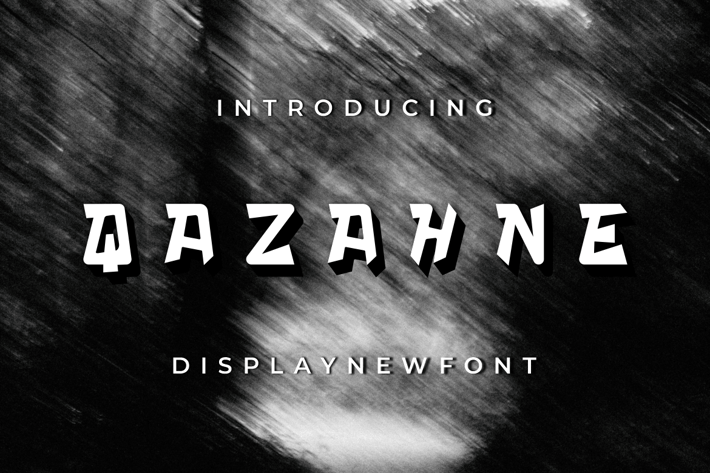
QAZAHNE Font
Introducing our new product QAZAHNE Font - Modern Font
QAZAHNE Font - Modern Font is a bold and authentic display font. The font is suitable for any branding project like logo, t-shirt printing, esport, and many more. outstanding in a wide range of contexts.